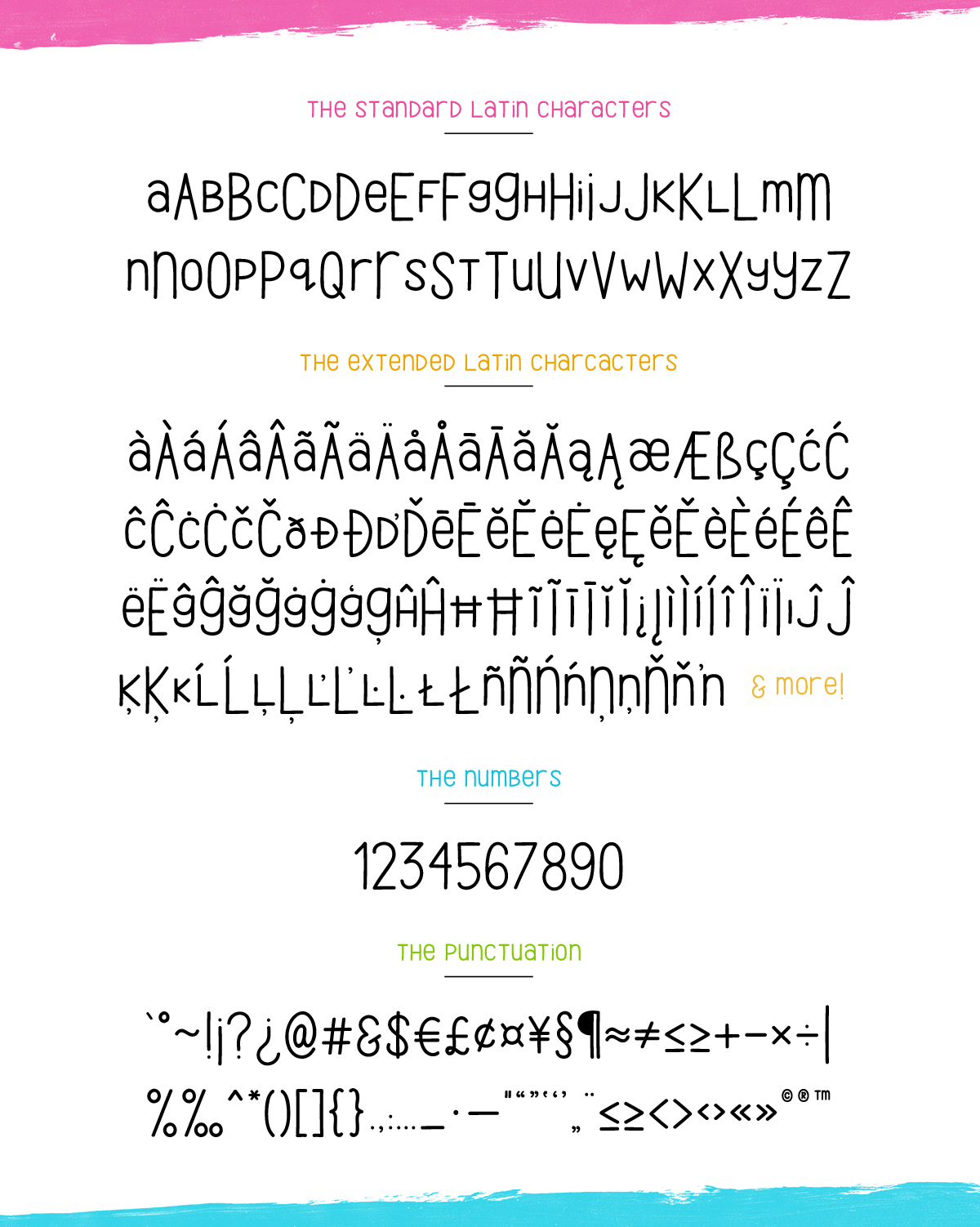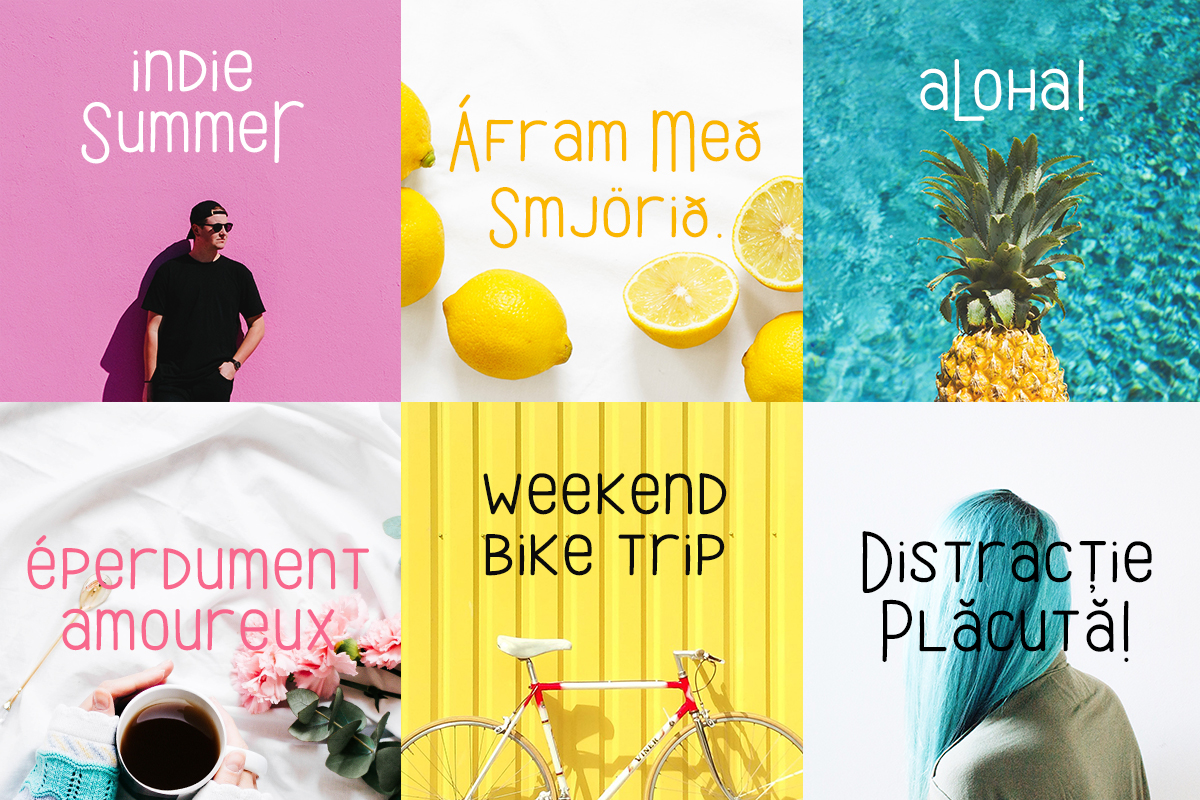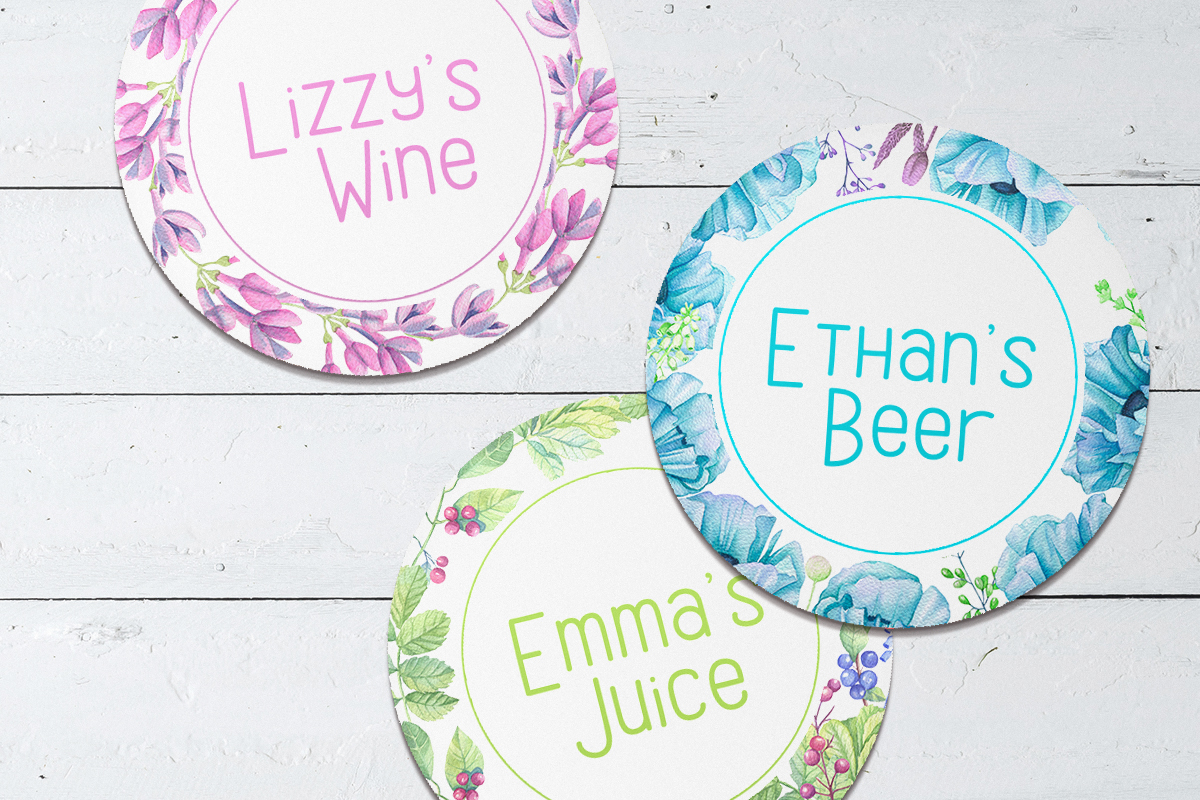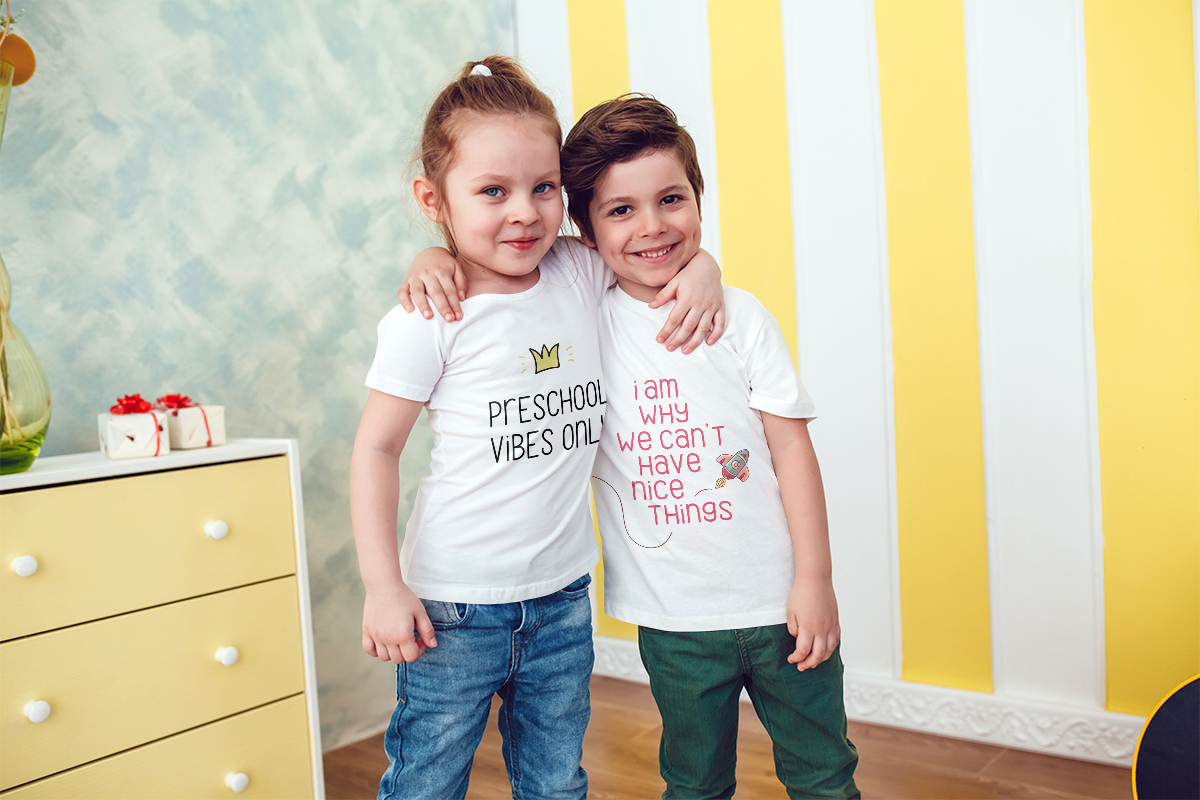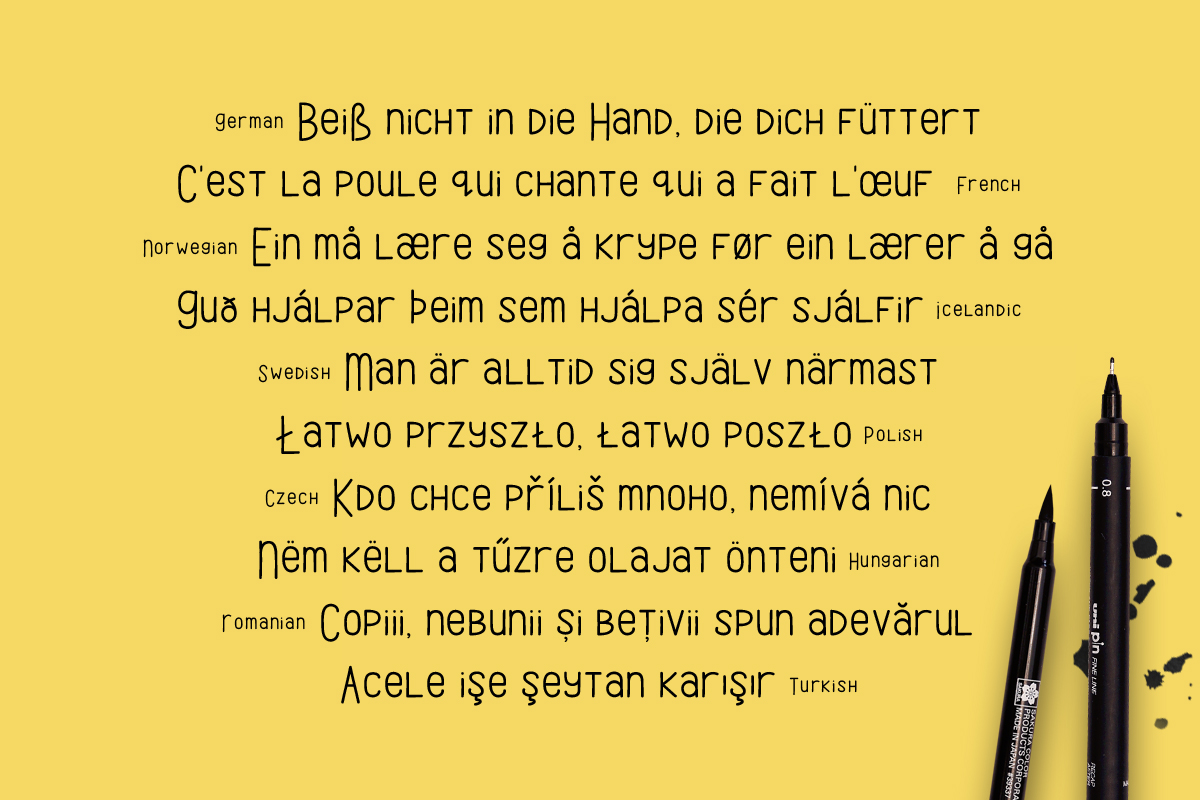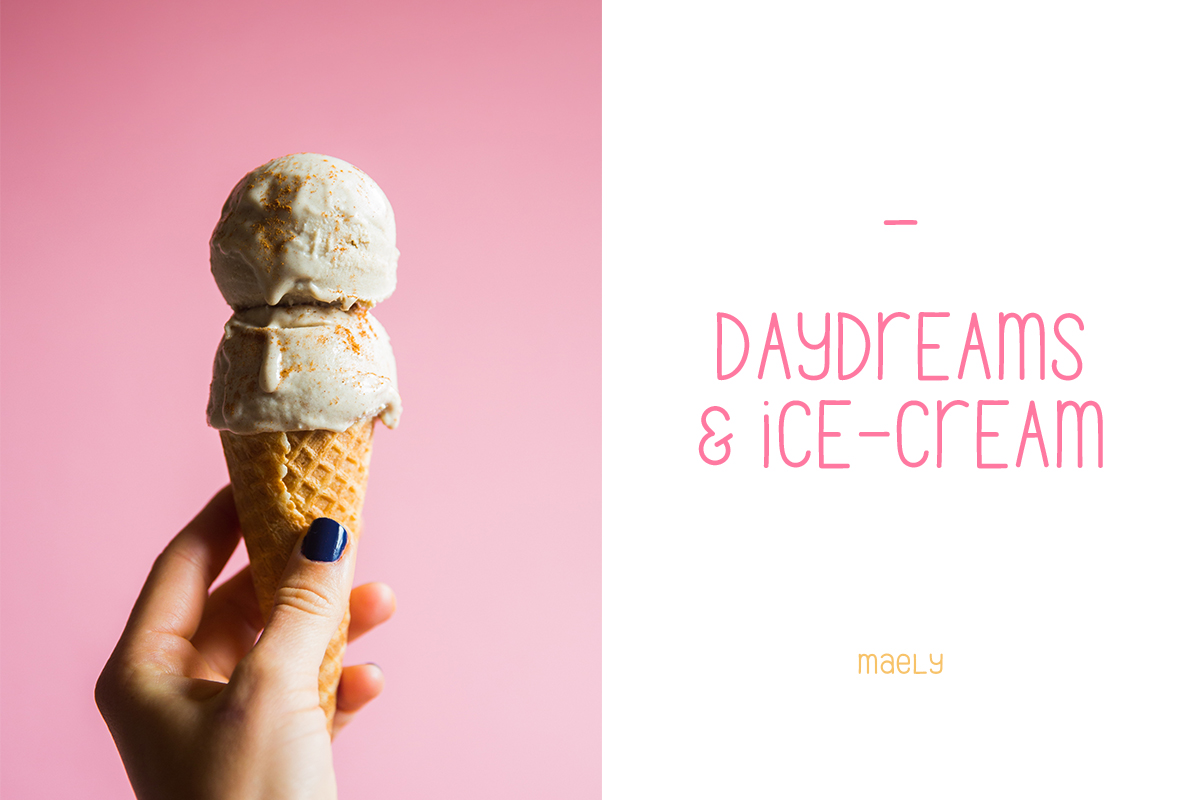
Introduction to Maely Font
Remember that moment when you stumbled upon the perfect design resource that elevated your creative project from good to great? For designers, finding the right typography can be a game-changer. It’s the difference between a bland, generic look and a unique, attention-grabbing visual identity.
That’s where Maely Font comes in – a charming, monoline typeface that’s sure to bring a touch of whimsy to your designs. With its simplicity and versatility, Maely Font is the perfect choice for creatives who want to add a playful, cheerful vibe to their work.
Key Features of Maely Font
- High-quality, professional font designed for creative projects, ideal for use in logos, branding, and other design elements.
- Unique, elegant design with a transparent background, making it perfect for use on any color or texture.
- Includes a wide range of characters, including uppercase and lowercase letters, numbers, and punctuation marks, making it a versatile design resource.
- Perfect for use in digital design projects, such as web design, graphic design, and UI/UX design.
Honest Review: Maely Font
I recently had the chance to work with the Maely Font, and I must say, it’s been a delightful experience. This font is a fantastic addition to any designer’s arsenal, especially when it comes to creating a high-quality design resource for a creative project.
Here’s what works well: ✨ The Maely Font has a clean and elegant design that makes it perfect for a wide range of applications, from web design to print materials. The font is also highly customizable, allowing designers to tweak the settings to suit their specific needs. Plus, the transparent background option is a huge plus, giving designers the flexibility to create a seamless design.
Overall, I’m thoroughly impressed with the Maely Font. Its high-quality design and versatility make it a valuable resource for any designer, and its transparent background option is a game-changer. While there are some limitations, I believe the benefits far outweigh the drawbacks.
- Clean and elegant design
Common Use Cases for Maely Font
Maely Font is ideal for creative projects that require a high-quality, elegant font. Common use cases include designing wedding invitations, business cards, and marketing materials. The font’s transparent background feature makes it perfect for creating visually appealing graphics and designs.
The Maely Font is available in high-resolution, making it ideal for use in creative projects, such as logos, branding, and packaging. The font’s high quality ensures that it will look great on a variety of devices and screens, even when used with a transparent background.